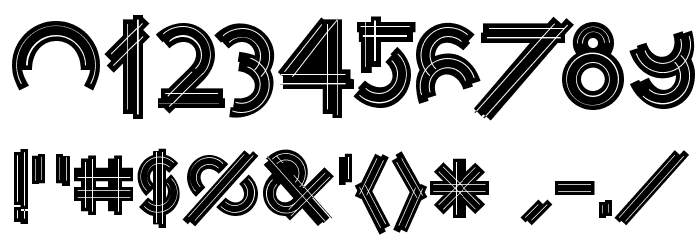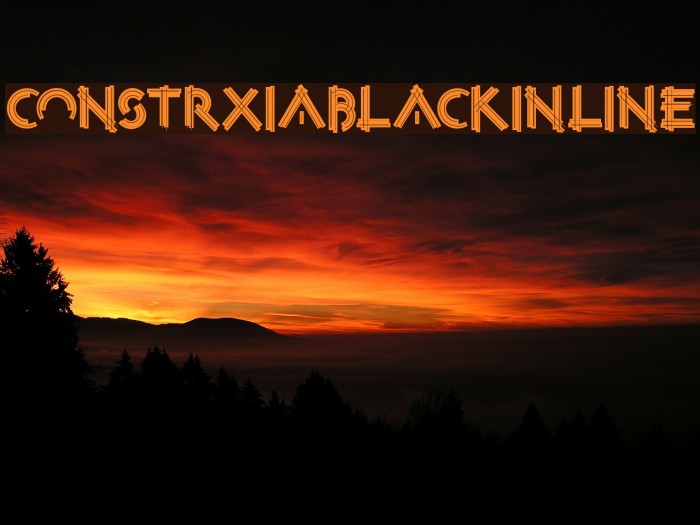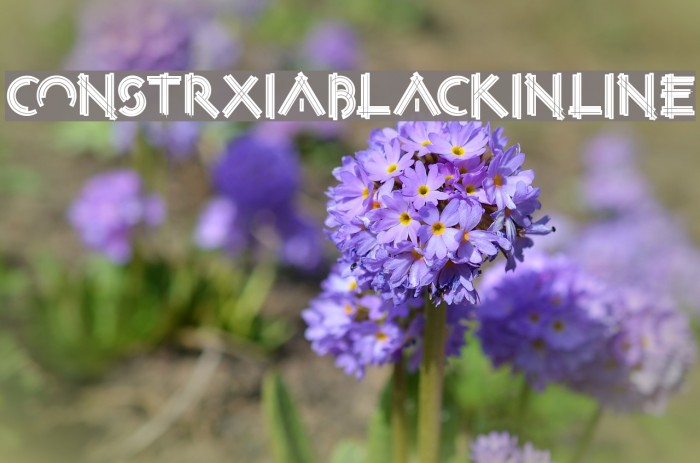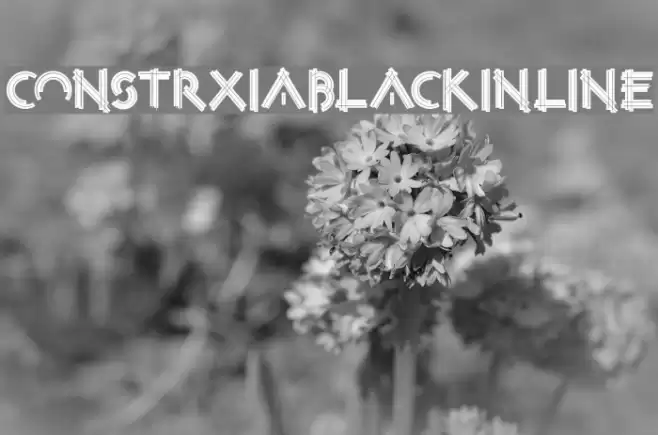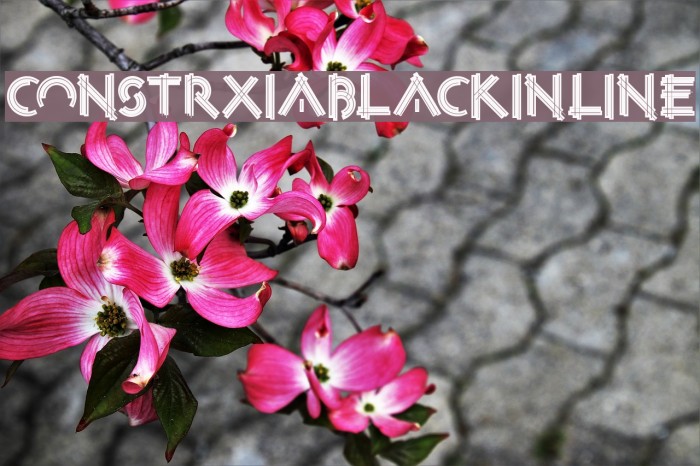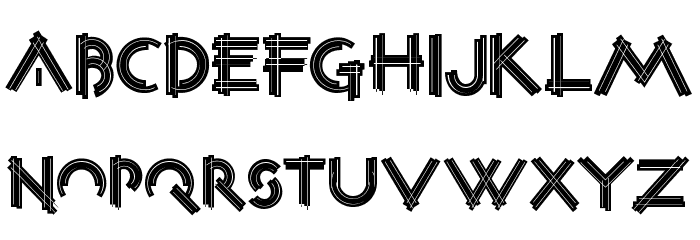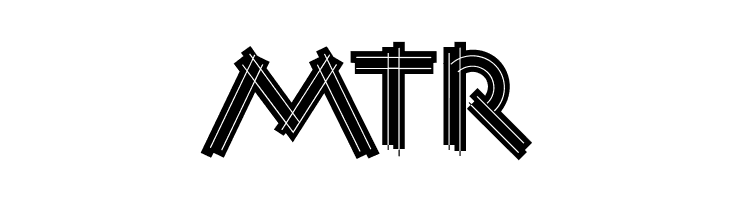
ConstrxiaBlackInline Font
ConstrxiaBlackInline Description
This font features a bold, geometric design with a distinct inline style that creates a layered, dimensional effect. The characters are constructed with straight lines and sharp angles, giving it a modern and industrial appearance. The inline detail adds a sense of depth and complexity, making it stand out in any design. The uppercase and lowercase letters maintain a consistent style, while the numerals and special characters are crafted to match the overall aesthetic. This font is ideal for projects that require a strong visual impact, such as posters, logos, and branding materials.
| Proposed Projects | Ideal for posters, logos, branding, and any design needing a strong visual impact. |